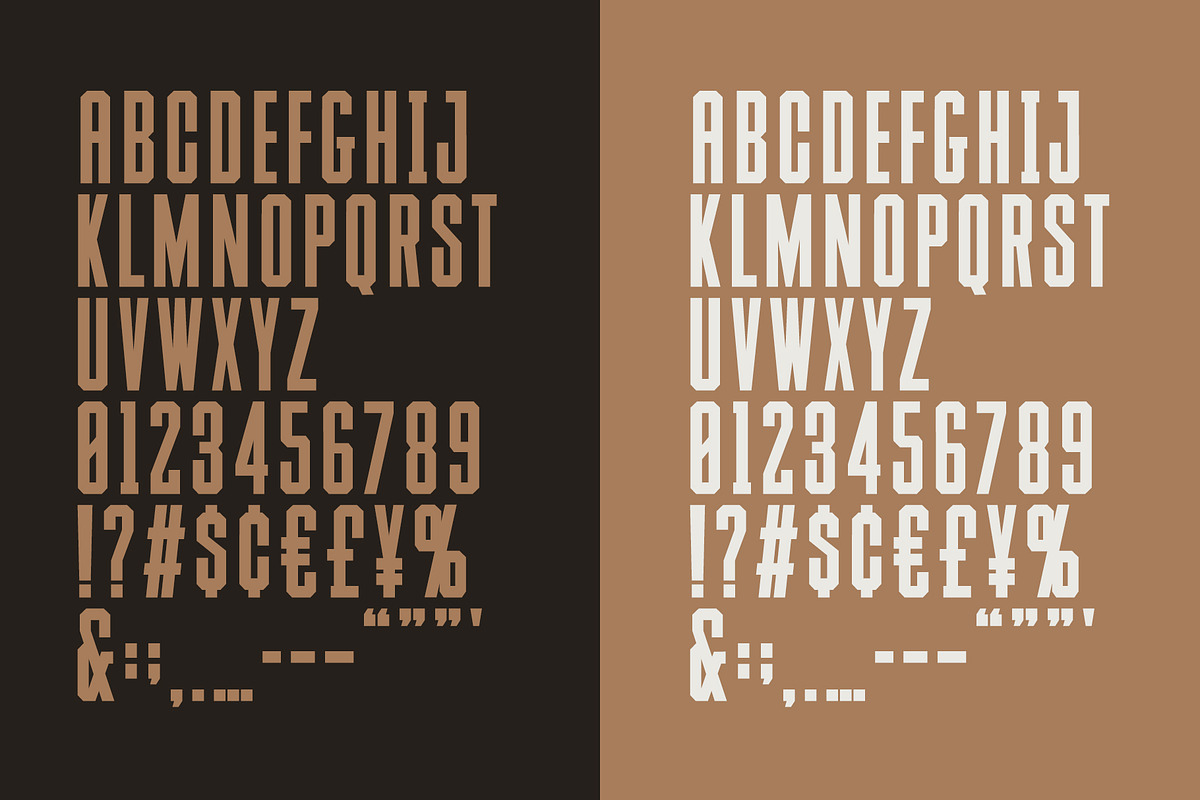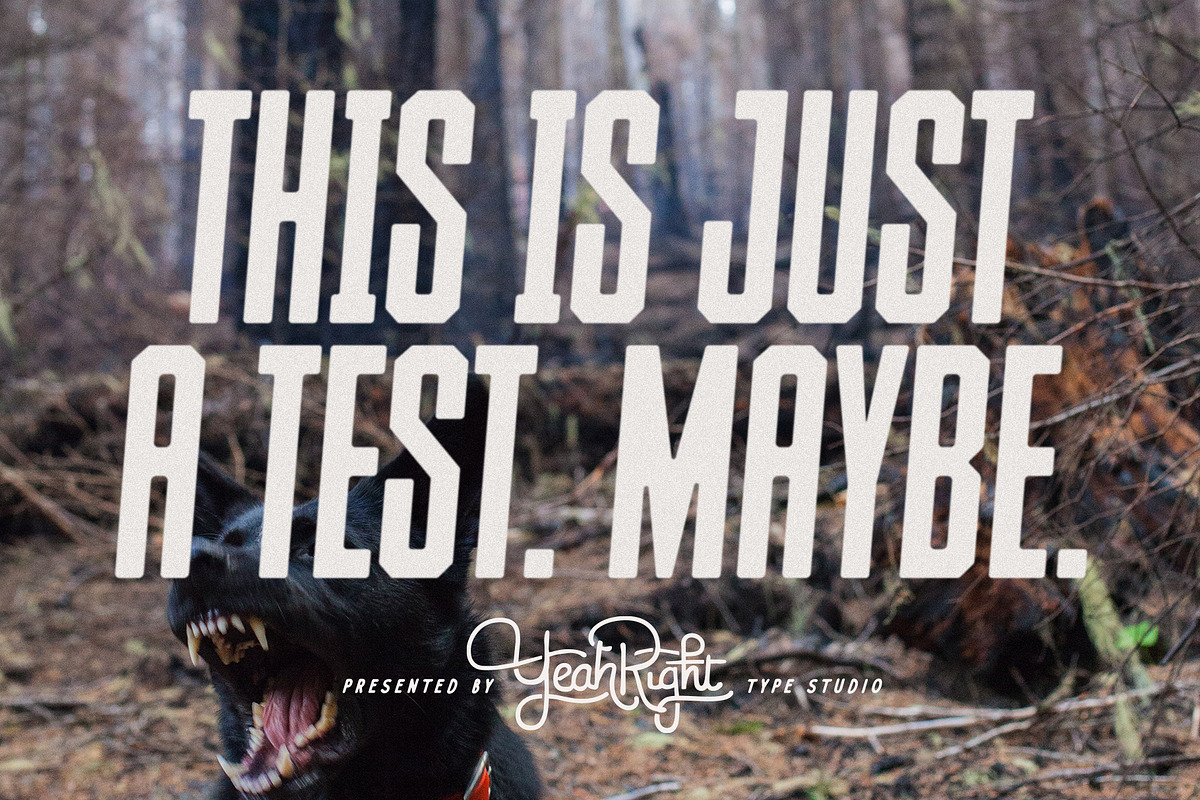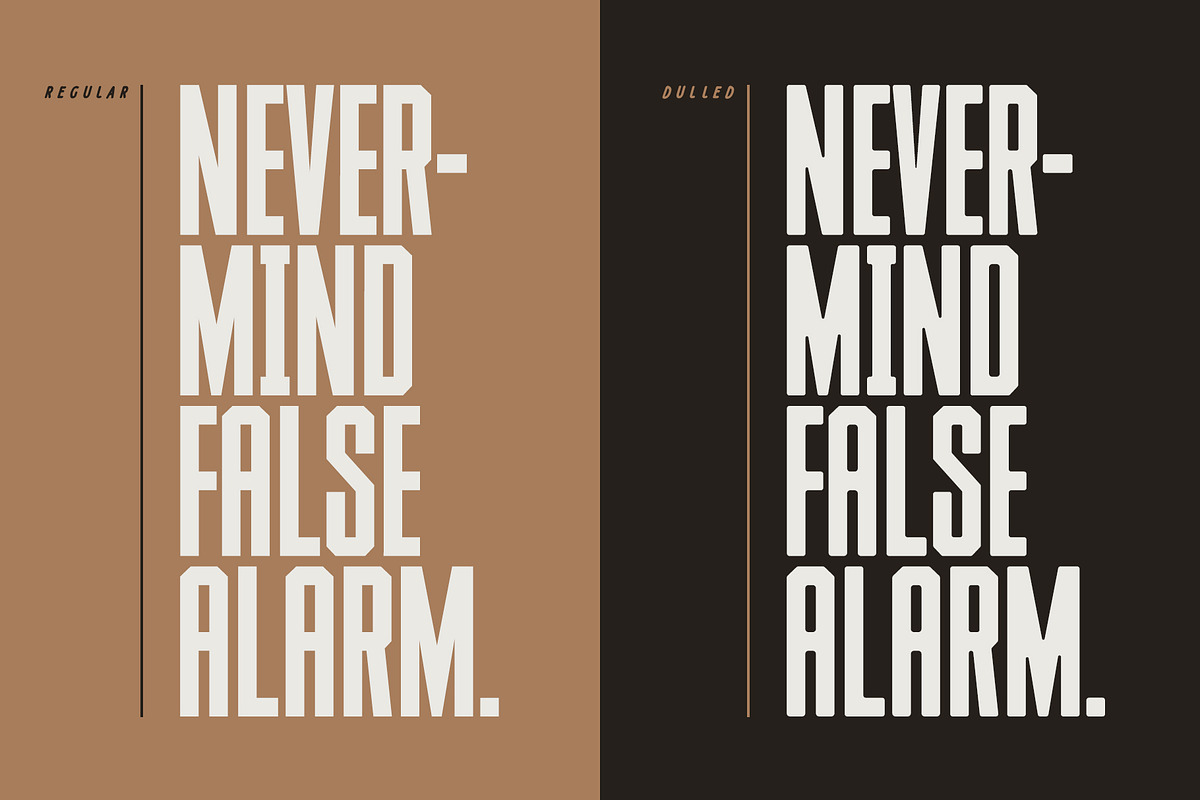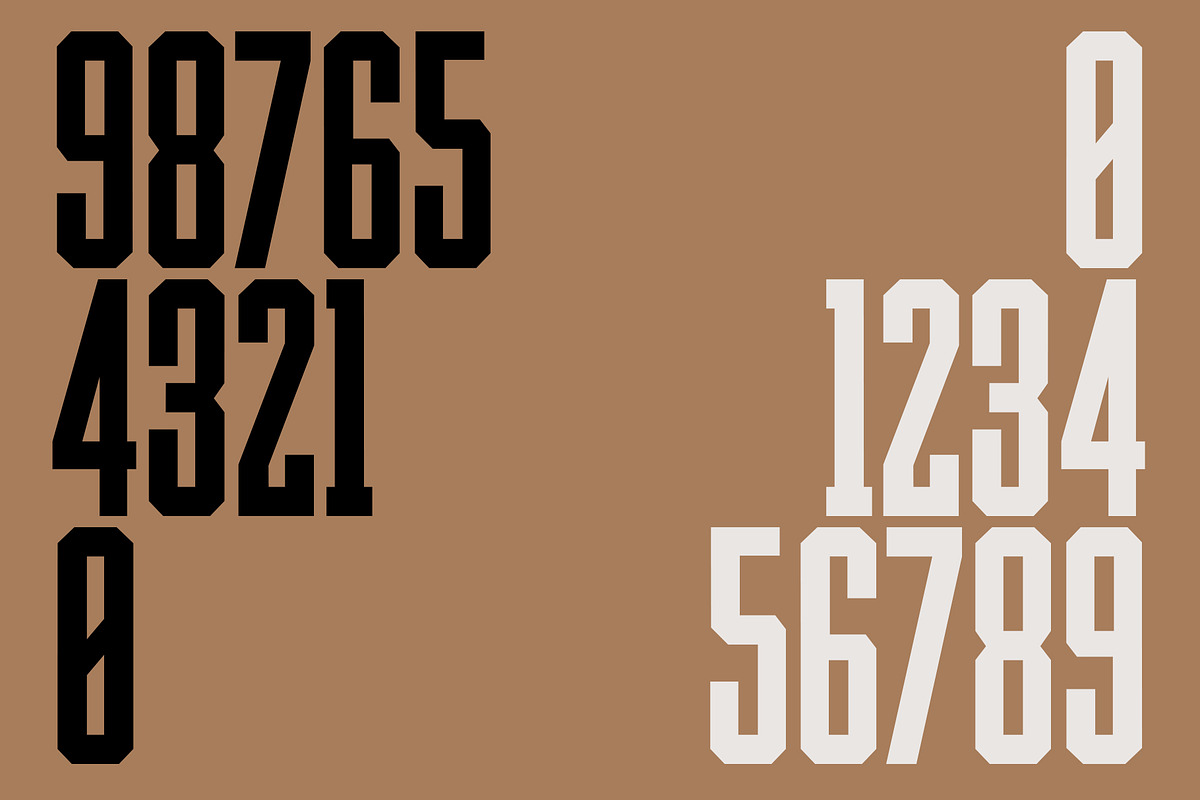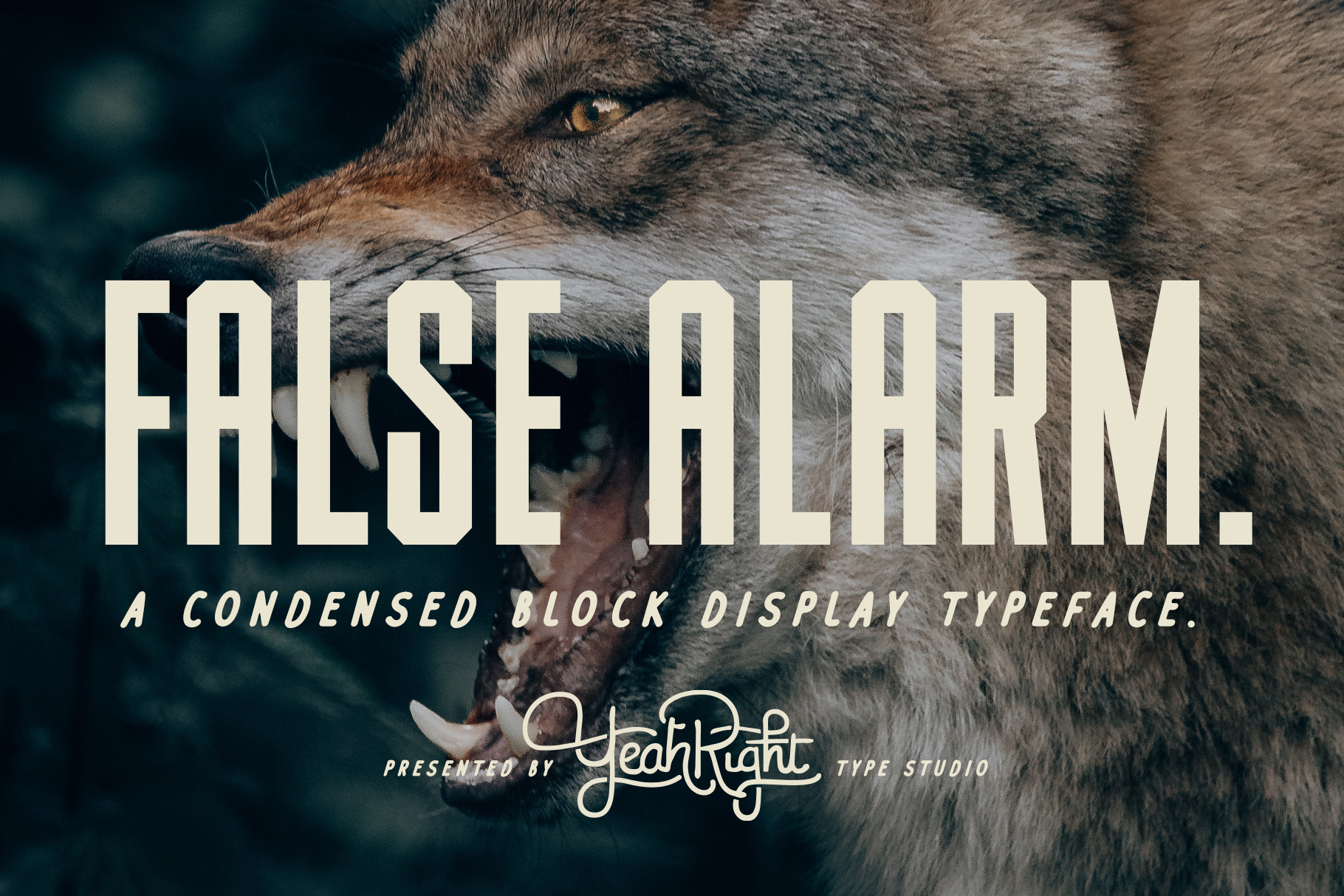
False Alarm Typeface
False Alarm is a condensed collegiate-style display face offering a lot of chutzpah in a little space. There’re two styles offered here: regular and dulled. Dulled incorporates some rounded corners and a pseudo-stamp feel to soften the overall feeling.